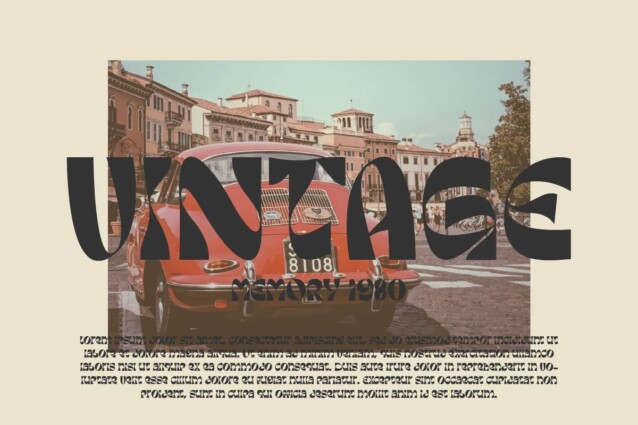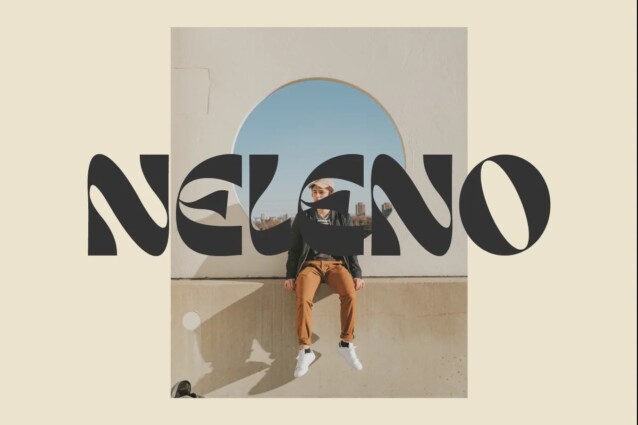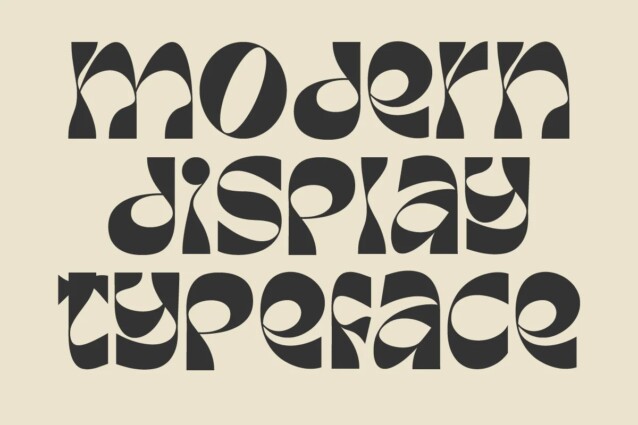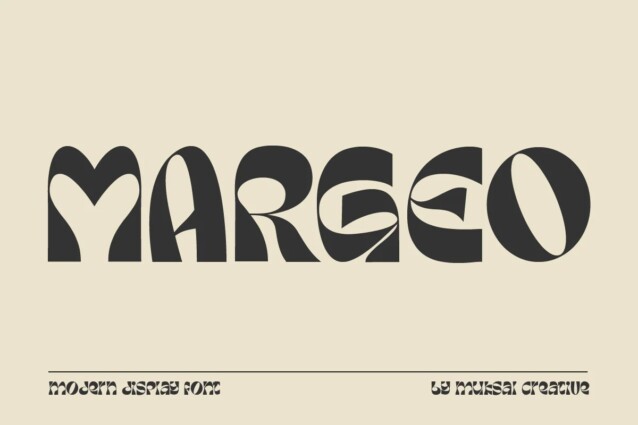
Margeo Font
Margeo Font is designed with a retro style concept that has a unique and cool shape. It’s a very versatile font that works great in large and small sizes. Perfect for editorial projects, Logo design, Clothing Branding, product packaging, magazine headers, or simply as a stylish text overlay to any background image.